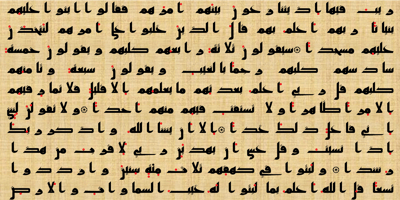
Mashq Font Family was designed by Saad D. Abulhab and published by Arabetics. Mashq contains 10 styles and family package options. The Mashq script is the oldest documented Arabic Jazm calligraphy style. It was invented by the early Muslims in the Arabian cities of Mecca and Medina, exclusively for writing the Quran and other Islamic religious texts. The Mashq style employed complex ligature and multi-level baseline rules, and therefore it went through a continuous simplification process. Around the time period Mashq was developed, the early Arab Muslims experimented with another short-lived Mashq-like style with heavily slanted vertical stems, which closely resembled the common Ḥijazi style. This style is commonly referred to as the Ma’il (slanted) style. Eventually, the early complex Mashq style was replaced as the main Islamic Arabic script, by a more simplified Mashq-derived calligraphy style that was developed in the city of Kufa, modern day Iraq, which was commonly referred to as Kufi. The Kufic style became the official Arabic script style for centuries before it was replaced by the more developed Naskh, the modern Arabic script style used today. The Mashq font family by Arabetics includes three styles of Mashq. The first is Mashq regular, which closely follows the script style of Musḥaf ‘Uthman (currently displayed in the Topkapi Museum in Turkey) with only the initial and final Haa’ baselines shifting. The second is Mashq Maail, which emphasizes the features of the Ma’il style shared with Mashq. The third is Mashq Kufi, which closely follows the script style in an adequate sample from the Quran manuscripts of the Bergstraesser Archive. All three fonts include two styles, with and without Tashkeel (dots). The Mashq and Mashq Kufi fonts include two more styles, with and without Harakat (soft vowels), and Hamza. Only three soft vowels are implemented along with their Tanween (double) forms. The Sukoon vowel is the default shape before inserting a soft vowel. Hamza was treated as a vowel in the Mashq and early Kufi manuscripts. Kashida is a zero width character. In the Mashq fonts, inserting one Kashida before the final ‘Ayn glyph group will trigger alternative shapes. In the Mashq Kufi fonts, inserting one Kashida (or two) before the final Yaa’, ‘Ayn, and Ḥaa’ glyph groups will trigger alternative shapes. The Mashq font family by Arabetics was designed to be as compatible as possible with the Arabic keyboard and Unicode alphabet used in computers today. Calligraphic variations were implemented only when they marked significant and permanent script features.